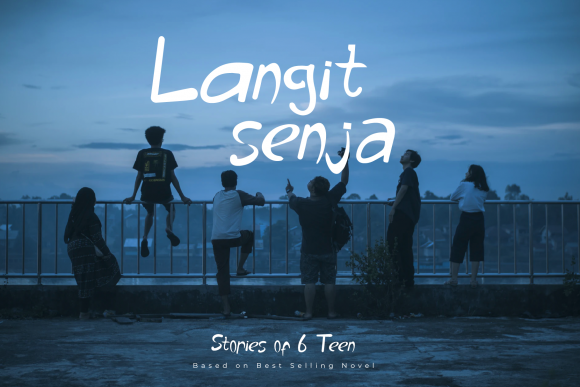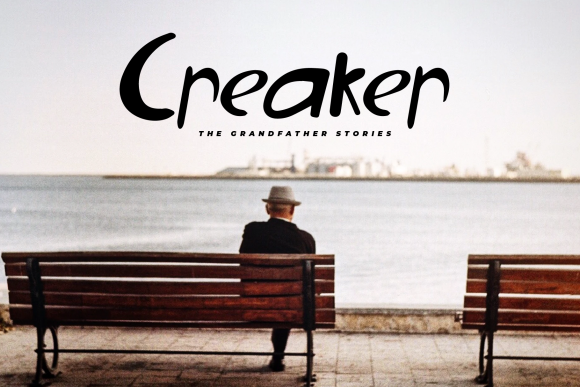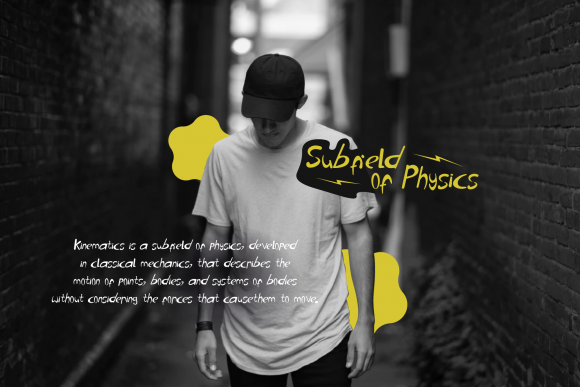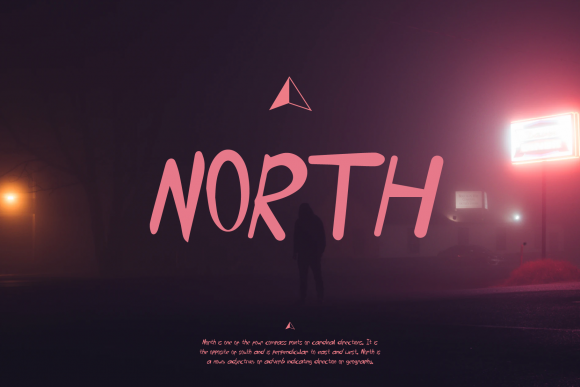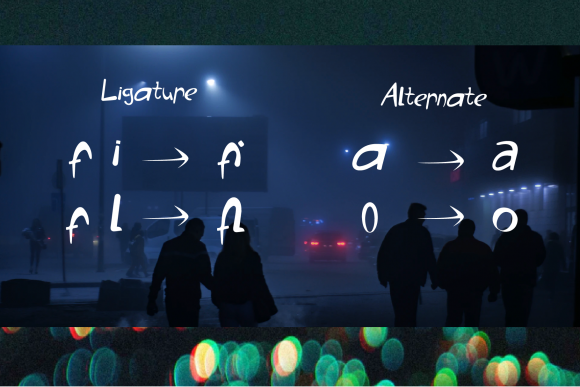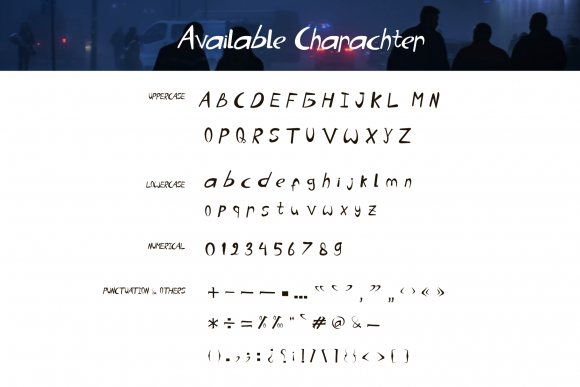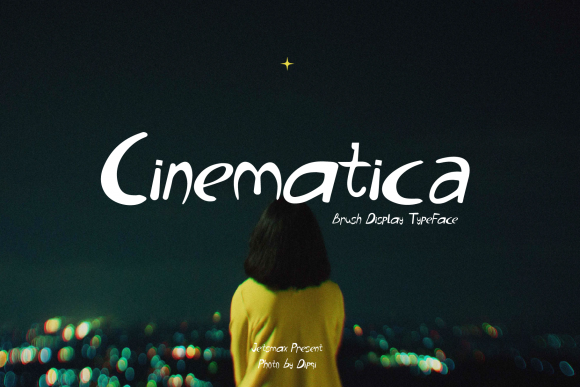
Cinematica Font: Elevate Your Designs with a Quirky and Lively Display Font
In the world of design, typography plays a crucial role in conveying the tone and personality of a brand or creation. When it comes to making a statement, a unique and eye-catching font can make all the difference. This is where Cinematica Font comes in – a quirky and lively display font that is expertly designed to make your creation look out of this world.
What is Cinematica Font?
Cinematica Font is a display font that boasts a distinctive and playful style, perfect for designers and crafters looking to add a touch of whimsy to their work. With its bold and adventurous vibe, this font is sure to capture the attention of your audience and leave a lasting impression.
Key Features of Cinematica Font
- Quirky and Lively Design: Cinematica Font features a unique and energetic design that is sure to add a pop of personality to your creations.
- Expertly Crafted: Designed with precision and attention to detail, this font is optimized for maximum legibility and impact.
- Versatile: Whether you’re working on a logo, poster, or social media graphic, Cinematica Font is versatile enough to fit a variety of design needs.
- Easy to Read: Despite its playful design, Cinematica Font remains clear and easy to read, making it perfect for headlines, titles, and short paragraphs.
Who Can Benefit from Cinematica Font?
Cinematica Font is perfect for a range of designers and crafters, including:
- Graphic Designers: Add a touch of personality to your brochures, flyers, and posters with this eye-catching font.
- Social Media Influencers: Elevate your social media graphics and make your content stand out from the crowd.
- Crafters: Use Cinematica Font to add a professional touch to your handmade products, such as labels, packaging, and promotional materials.
- Marketeers: Create engaging and memorable marketing materials, such as billboards, ads, and email headers.
Tips for Using Cinematica Font
To get the most out of Cinematica Font, here are some expert tips:
- Pair with Neutral Fonts: Balance out the playfulness of Cinematica Font by pairing it with a neutral font for body text.
- Experiment with Colors: Take advantage of Cinematica Font’s bold design by experimenting with bright and bold colors.
- Use for Headlines: Cinematica Font is perfect for headlines and titles, so don’t be afraid to use it to make a statement.
Cinematica Font is a game-changing display font that is sure to elevate your designs and make them stand out from the crowd. With its quirky and lively design, expert craftsmanship, and versatility, this font is perfect for designers and crafters looking to add a touch of personality to their work. So why wait? Download Cinematica Font today and take your designs to the next level!